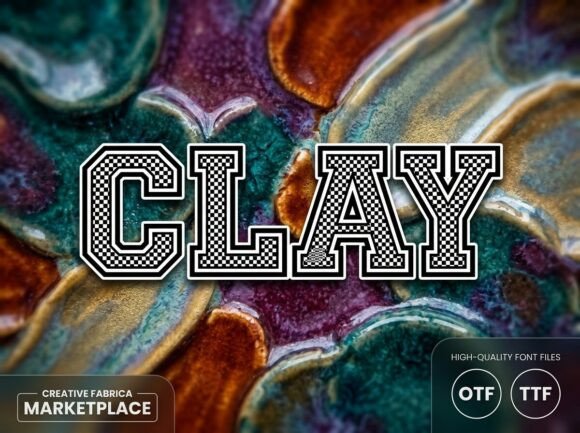
Introducing Clay Font: A Stunning Decorative Display Font
Are you tired of using the same old fonts for your creative projects? Look no further than Clay Font, a unique and artistic display font that’s sure to turn heads. With its strong visual personality and decorative elements, this font is perfect for designers and crafters who want to add a touch of elegance and sophistication to their work.
A Font that’s Truly One-of-a-Kind
Clay Font is a stunning decorative display font designed to be the center of attention. Its unique artistic elements and strong visual personality make it perfect for creators who want to break away from the ordinary. Whether you’re working on a bold headline, artistic logo, or creative packaging, this font is versatile enough to deliver a professional and polished finish.
This means you can use Clay Font in a variety of applications, from graphic design and digital art to crafting and DIY projects.
This means that Clay Font is perfect for projects where you want to make a bold statement, but it’s not suitable for body text or other applications where lowercase letters are necessary.
Use Cases for Clay Font
So, what can you use Clay Font for? Here are a few ideas to get you started:
- Headlines and Titles: Use Clay Font to create eye-catching headlines and titles for your blog posts, articles, and social media graphics.
- Logos and Branding: Create a unique and memorable logo for your business or brand with Clay Font.
- Packaging and Labeling: Add a touch of elegance and sophistication to your product packaging and labels with Clay Font.
- Digital Art and Graphics: Use Clay Font to add a decorative element to your digital art and graphics.
- Crafting and DIY Projects: Use Clay Font to create custom signs, banners, and other decorative items for your crafting and DIY projects.
Why Choose Clay Font?
So, why should you choose Clay Font for your next project? Here are just a few reasons:
- Unique and Artistic: Clay Font is a truly unique and artistic font that’s sure to stand out from the crowd.
- Versatile: This font is versatile enough to use in a variety of applications, from graphic design and digital art to crafting and DIY projects.
- Professional and Polished: Despite its decorative nature, Clay Font still delivers a professional and polished finish.
In conclusion, Clay Font is a stunning decorative display font that’s perfect for designers and crafters who want to add a touch of elegance and sophistication to their work. With its unique artistic elements and strong visual personality, this font is sure to turn heads. So why wait? Purchase Clay Font today and start creating stunning headlines, logos, and graphics that will leave a lasting impression.